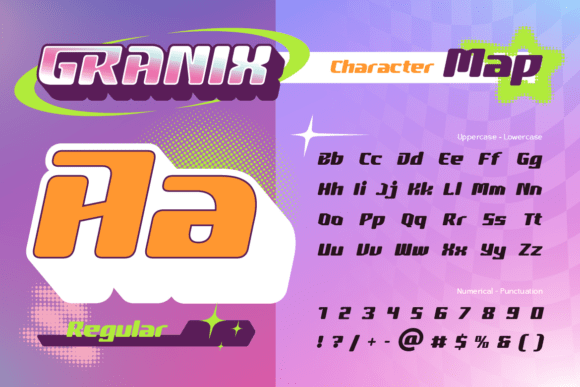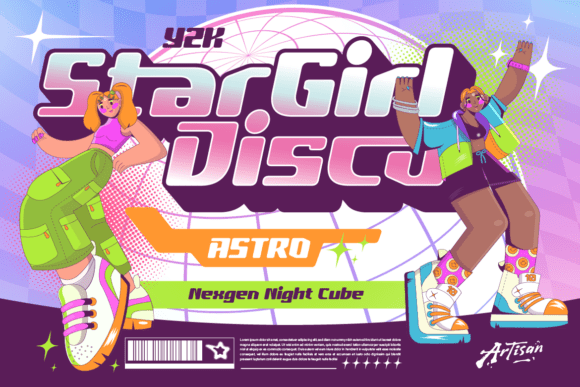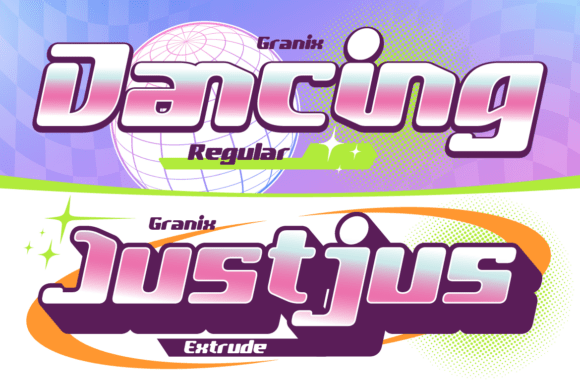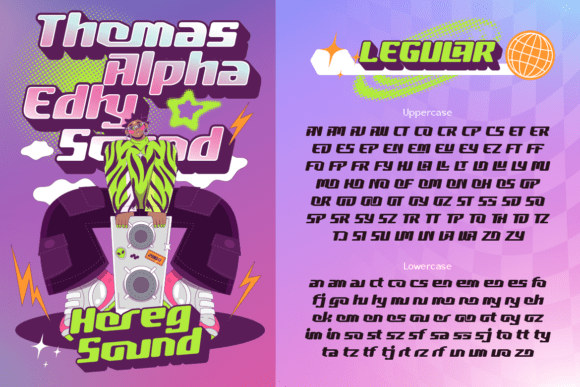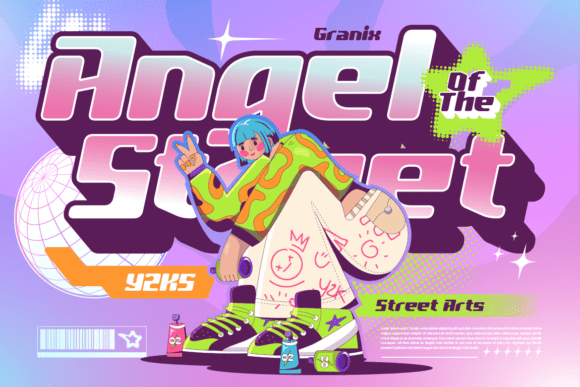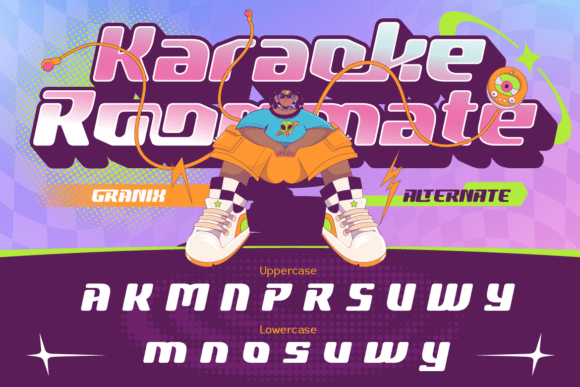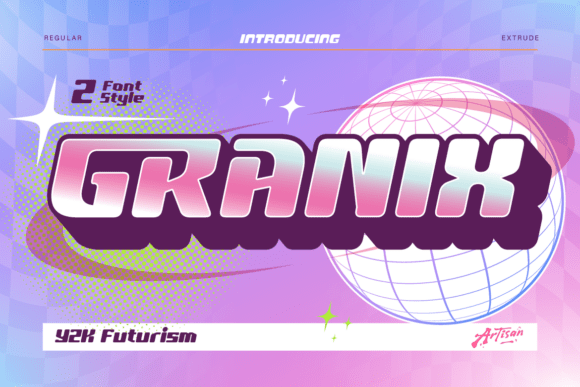
Introducing Granix Font: The Ultimate Retro-Future Display Font
Are you tired of using the same old fonts in your designs? Do you want to add a touch of nostalgia and playfulness to your creations? Look no further than Granix Font, a bold and eye-catching display font that’s inspired by retro-future aesthetics, street culture, and early 2000s digital vibes.
What is Granix Font?
Granix is a unique and vibrant typeface that’s designed to stand out. With its chunky letterforms, smooth curves, and dynamic shapes, this font blends a bubble-tech style with a playful personality. Whether you’re a designer, craftsperson, or simply someone who loves to create, Granix Font is the perfect choice for anyone who wants to add a little excitement to their work.
Inspirations and Influences
Granix Font draws inspiration from a range of sources, including retro-future aesthetics, street culture, and early 2000s digital vibes. The font’s bubble-tech style is reminiscent of old-school video games, while its dynamic shapes and smooth curves evoke the spirit of streetwear and fashion branding. Whether you’re creating a logo, poster, or social media graphic, Granix Font is the perfect choice for anyone who wants to tap into the nostalgia of the past while still feeling fresh and modern.
So, what can you use Granix Font for? The possibilities are endless! Here are just a few ideas to get you started:
- Streetwear & fashion branding: Add a touch of edginess to your fashion brand with Granix Font. Its bold, chunky letterforms are perfect for creating eye-catching logos and labels.
- Music covers: Whether you’re creating a cover for a pop, hip-hop, electronic, or hyperpop album, Granix Font is the perfect choice. Its vibrant personality and dynamic shapes will help your music stand out.
- Posters & event flyers: Create bold and eye-catching posters and flyers with Granix Font. Its playful personality and retro-future vibes are perfect for promoting concerts, festivals, and other events.
- Social media graphics & Instagram posts: Add a touch of personality to your social media graphics and Instagram posts with Granix Font. Its bold, chunky letterforms are perfect for creating eye-catching headlines and captions.
- Gaming & tech visuals: Granix Font is also perfect for gaming and tech visuals. Its bubble-tech style and dynamic shapes evoke the spirit of old-school video games, while its vibrant personality adds a touch of modernity.
- Creative projects with Gen Z / Y2K vibes: Whether you’re creating a project for a Gen Z audience or simply want to tap into the nostalgia of the early 2000s, Granix Font is the perfect choice. Its retro-future aesthetics and playful personality are sure to resonate with anyone who grew up during this time.
Key Features of Granix Font
So, what sets Granix Font apart from other display fonts? Here are just a few key features:
- Unique bubble-tech style: Granix Font’s bubble-tech style is unlike anything you’ve seen before. Its chunky letterforms and smooth curves create a truly eye-catching effect.
- Dynamic shapes: The font’s dynamic shapes add a touch of playfulness and energy to your designs.
- Vibrant personality: Granix Font has a truly vibrant personality that’s perfect for creating bold and eye-catching designs.
In conclusion, Granix Font is the ultimate retro-future display font for designers and craftspersons who want to add a touch of nostalgia and playfulness to their creations. With its unique bubble-tech style, dynamic shapes, and vibrant personality, this font is perfect for a range of creative projects, from streetwear and fashion branding to music covers and social media graphics. So why wait? Download Granix Font today and start creating bold, eye-catching designs that are sure to stand out!